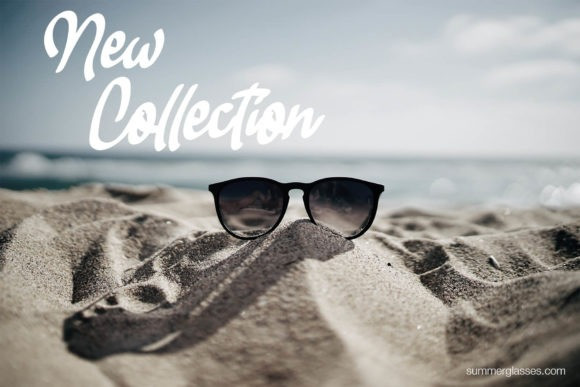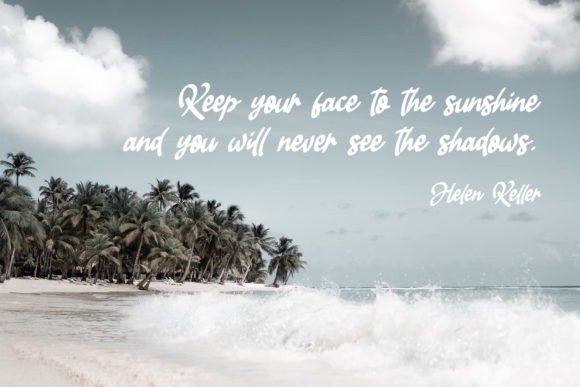
Julio Santa Font
Julio Santa Script Font is decorative script font with a calligraphy flair, Perfect for creating wedding invitation, craft design, and other project that required feminine and romantic style. For those of you who are needing a touch of romantic, chic and modernity for your designs, this font was created for you!